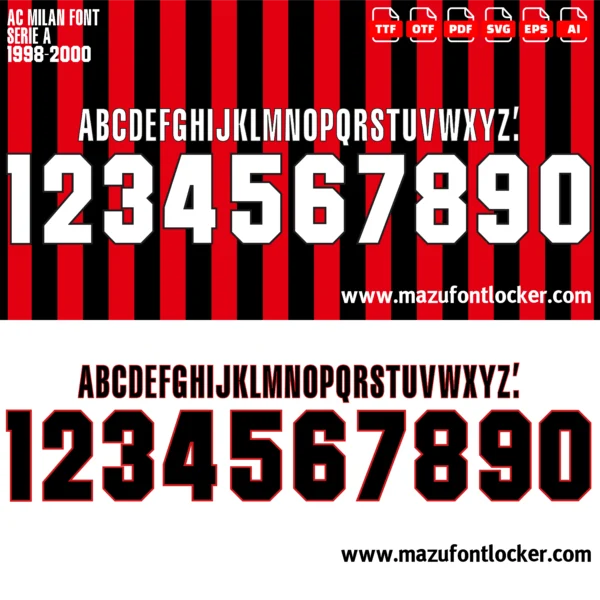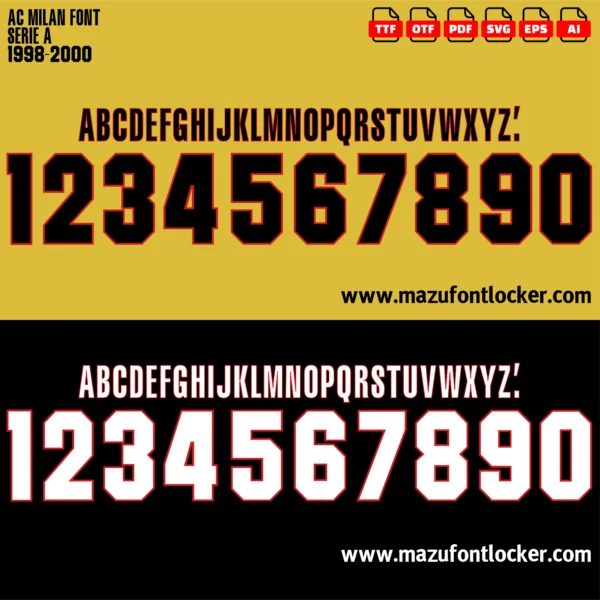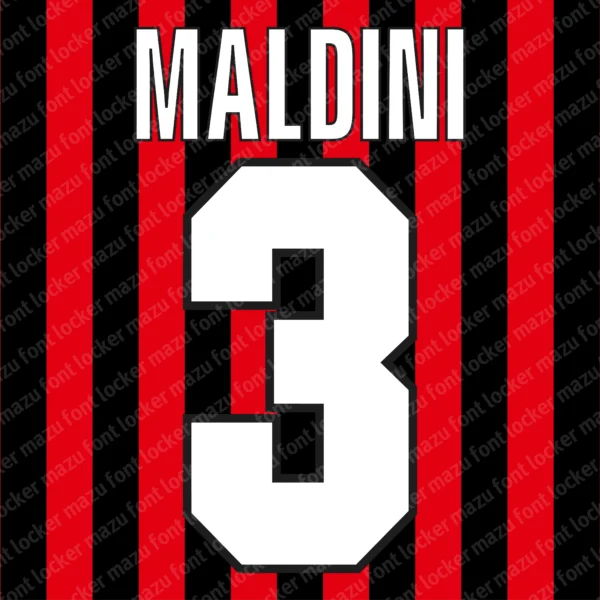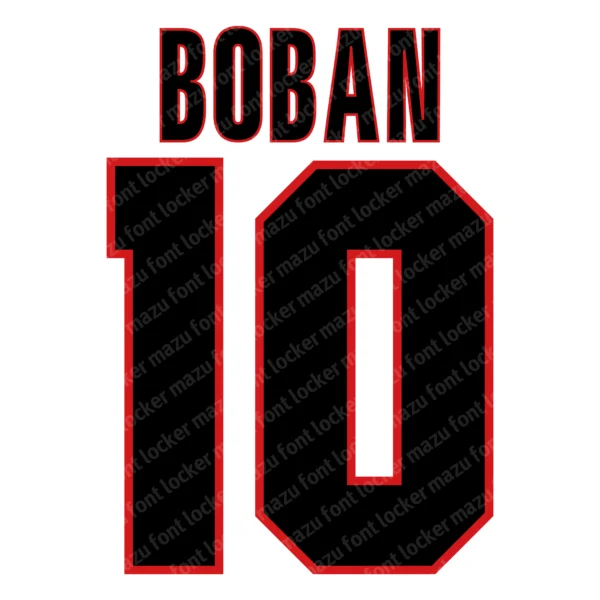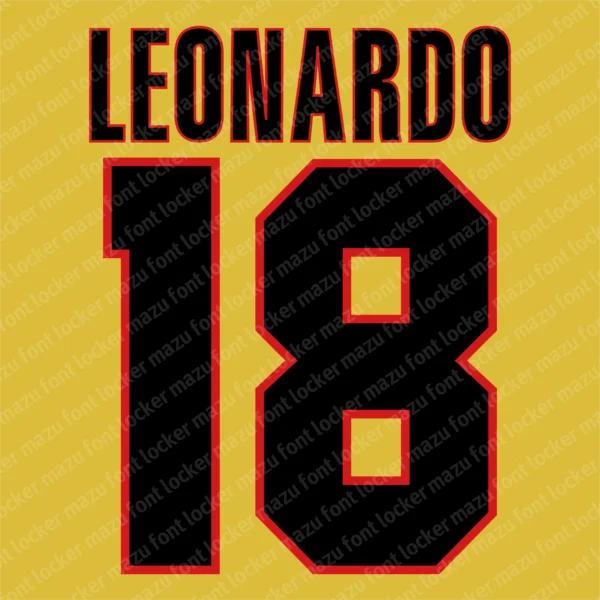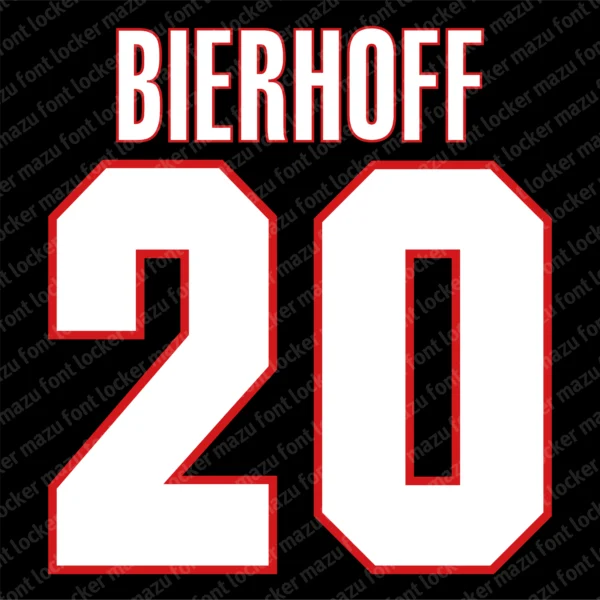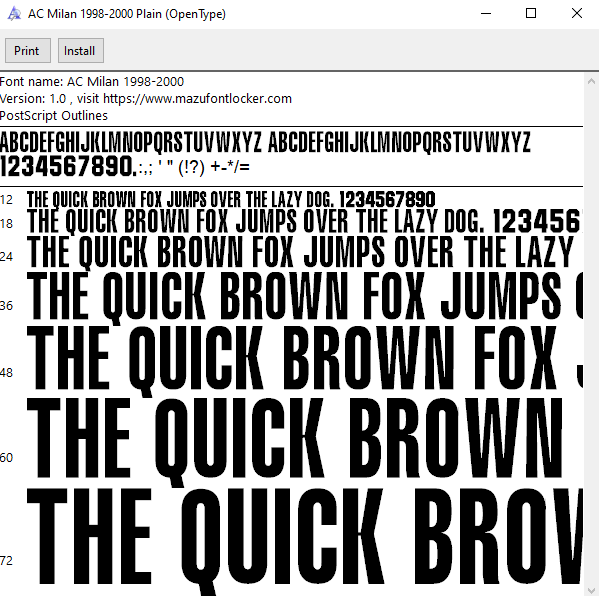
AC Milan 1998-2000 Font Vector – Stunning Legendary Rossoneri
This font captures the sharp, precision-crafted lettering inspired by AC Milan’s iconic red-and-black identity, historic Italian football heritage, legendary San Siro tradition, and unforgettable 1998-2000 era — delivering premium authenticity and classic match-day energy for professional jersey mockups, football graphics, sports branding, fan designs, and high-end creative projects.
AC Milan 1998-2000 Font Vector – Stunning Rossoneri Typeface
The AC Milan 1998-2000 Font Vector is a premium football typeface designed to recreate the distinctive lettering associated with Associazione Calcio Milan during the 1998-2000 era. This high-quality vector font kit captures a bold, classic, clean, and instantly recognizable football typography style inspired by the Rossoneri’s iconic red and black identity.
Designed for professional graphic designers, football enthusiasts, jersey collectors, and passionate AC Milan supporters, the AC Milan 1998-2000 Font Vector delivers an authentic retro football aesthetic for creating realistic vintage jersey mockups, football merchandise, social media graphics, classic match posters, squad designs, banners, and custom fan artwork. Every character has been carefully recreated to reflect the powerful and traditional visual style associated with one of Italy’s most historic football clubs.
Why Choose AC Milan 1998-2000 Font Vector
This font stands out thanks to its precise vector construction and authentic retro football styling. Every letter and numeral has been meticulously recreated to deliver a distinctive football lettering aesthetic inspired by AC Milan’s 1998-2000 period and its legendary Italian football heritage.
Whether you’re producing professional retro football kit templates, classic jersey concepts, Serie A graphics, vintage football posters, or eye-catching football content, the AC Milan 1998-2000 Font Vector delivers a genuine match-ready appearance inspired by the identity of the Rossoneri.
The lettering featured in the AC Milan 1998-2000 Font Vector combines strong geometric lines with classic football proportions. The result is a premium and highly readable typeface that reflects AC Milan’s traditional red and black identity, historic Italian football heritage, and iconic status in European football.
The numerals feature balanced curves, sharp edges, and consistent spacing for maximum readability on classic football jerseys and digital media. Built entirely as scalable vectors, every number remains crisp and clear for jersey customization, posters, banners, print projects, social media graphics, and high-resolution retro football artwork.
AC Milan 1998-2000 Era
The 1998-2000 period represents a memorable era in AC Milan’s rich football history. During this period, the Rossoneri featured a strong squad of internationally recognized players and continued competing at the highest level of Italian and European football.
The AC Milan 1998-2000 Font Vector is inspired by the distinctive football typography and visual identity associated with the club during this classic period, making it an excellent choice for designers creating retro jersey concepts, vintage Serie A posters, classic squad graphics, football artwork, social media designs, and fan-made projects.